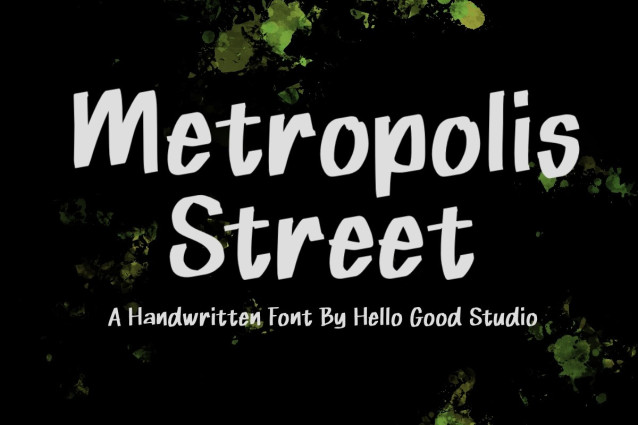
Metropolis Street Font
Metropolis Street Font, suitable for any design needs : logo, branding, modern advertising design, logos, poster quote, book / cover Title, editorial design, website / blog, card, t-shirts, and any hand-lettered needs.